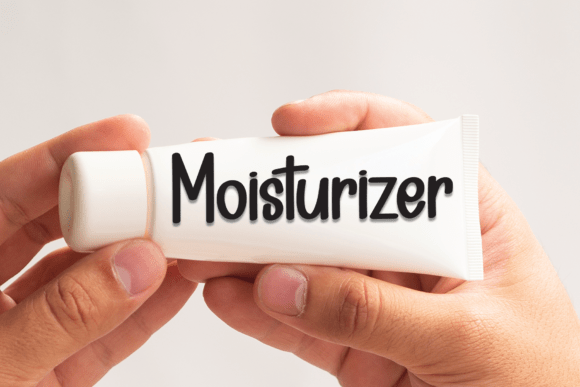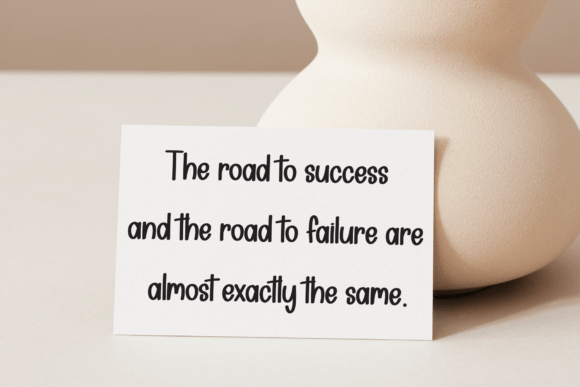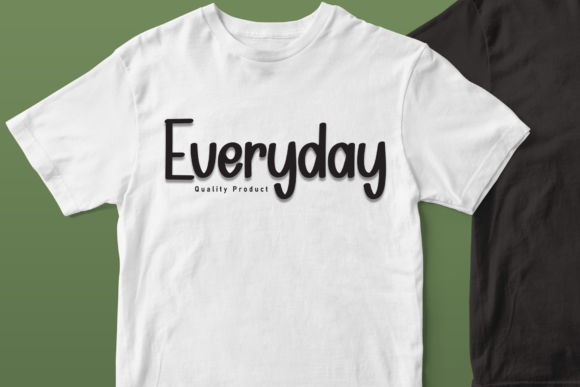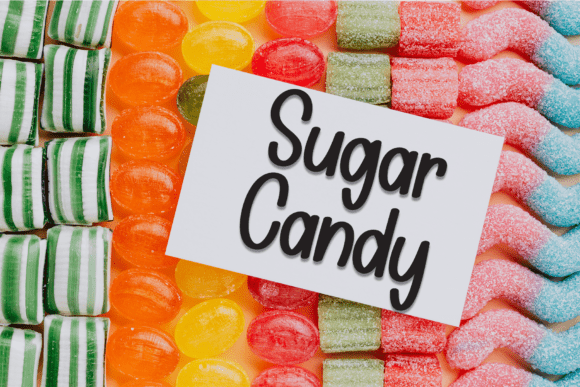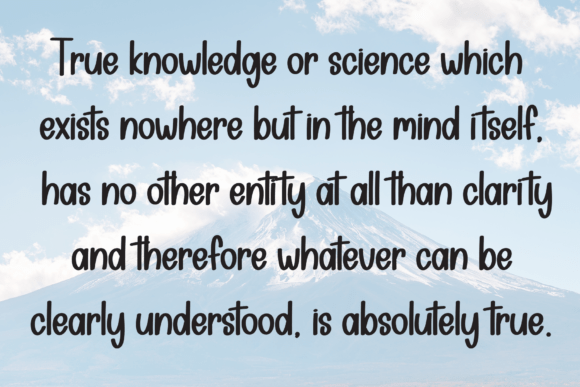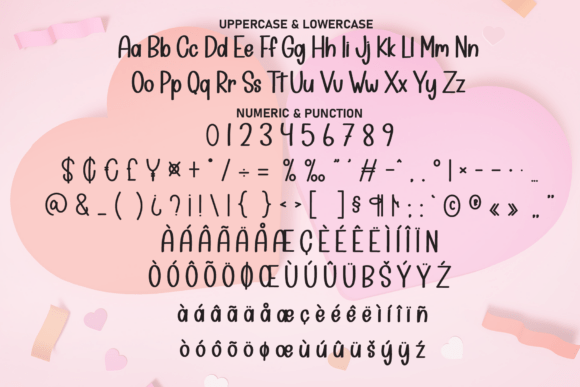
Happy Valentine Font: Adding a Touch of Personality to Your Designs
Are you tired of using the same old fonts for your designs? Do you want to add a touch of personality and uniqueness to your headlines, branding, and social media graphics? Look no further than the Happy Valentine Font! This bold handwritten font is designed to deliver personality and punch in every letter, making it perfect for designers and crafters who want to make a statement.
The Characteristics of Happy Valentine Font
The Happy Valentine Font is a bold and expressive font that is characterized by its thick strokes and natural hand-crafted flow. It has a confident and charming personality that is sure to grab attention and leave a lasting impression. The font’s hand-crafted flow gives it a unique and human touch, making it perfect for designs that need to convey a sense of personality and emotion.
Uses of Happy Valentine Font
The Happy Valentine Font is versatile and can be used for a variety of design projects, including:
- Headlines: The font’s bold and attention-grabbing personality makes it perfect for headlines that need to make a statement.
- Branding: The font’s unique and charming personality makes it perfect for branding projects that need to convey a sense of personality and emotion.
- Social Media Graphics: The font’s bold and expressive personality makes it perfect for social media graphics that need to grab attention and engage audiences.
- Posters: The font’s confident and charming personality makes it perfect for posters that need to make a bold statement.
Why Choose Happy Valentine Font?
There are many reasons why designers and crafters should choose the Happy Valentine Font for their design projects. Here are just a few:
- Unique Personality: The font has a unique and charming personality that is sure to grab attention and leave a lasting impression.
- Versatility: The font is versatile and can be used for a variety of design projects, from headlines and branding to social media graphics and posters.
- Easy to Read: Despite its bold and expressive personality, the font is easy to read and understand, making it perfect for designs that need to convey a message.
- High-Quality: The font is of high-quality and is designed to deliver exceptional results in a variety of design projects.
Tips for Using Happy Valentine Font
Here are a few tips for using the Happy Valentine Font in your design projects:
- Use it Boldly: The font is designed to be used boldly, so don’t be afraid to make it big and bold in your designs.
- Experiment with Colors: The font looks great in a variety of colors, so experiment with different colors to find the one that works best for your design.
- Pair it with Other Fonts: The font can be paired with other fonts to create a unique and interesting design.
- Use it Sparingly: While the font is bold and expressive, it can be overwhelming if used too much. Use it sparingly to create a design that is balanced and visually appealing.
The Happy Valentine Font is a bold and expressive font that is perfect for designers and crafters who want to add a touch of personality and uniqueness to their designs. With its thick strokes and natural hand-crafted flow, it’s perfect for headlines, branding, social media graphics, posters, and anything that needs to make a bold, human statement. Whether you’re going for edgy or expressive, this font brings the heat with confidence and charm. So why not give it a try and see how it can elevate your designs to the next level?